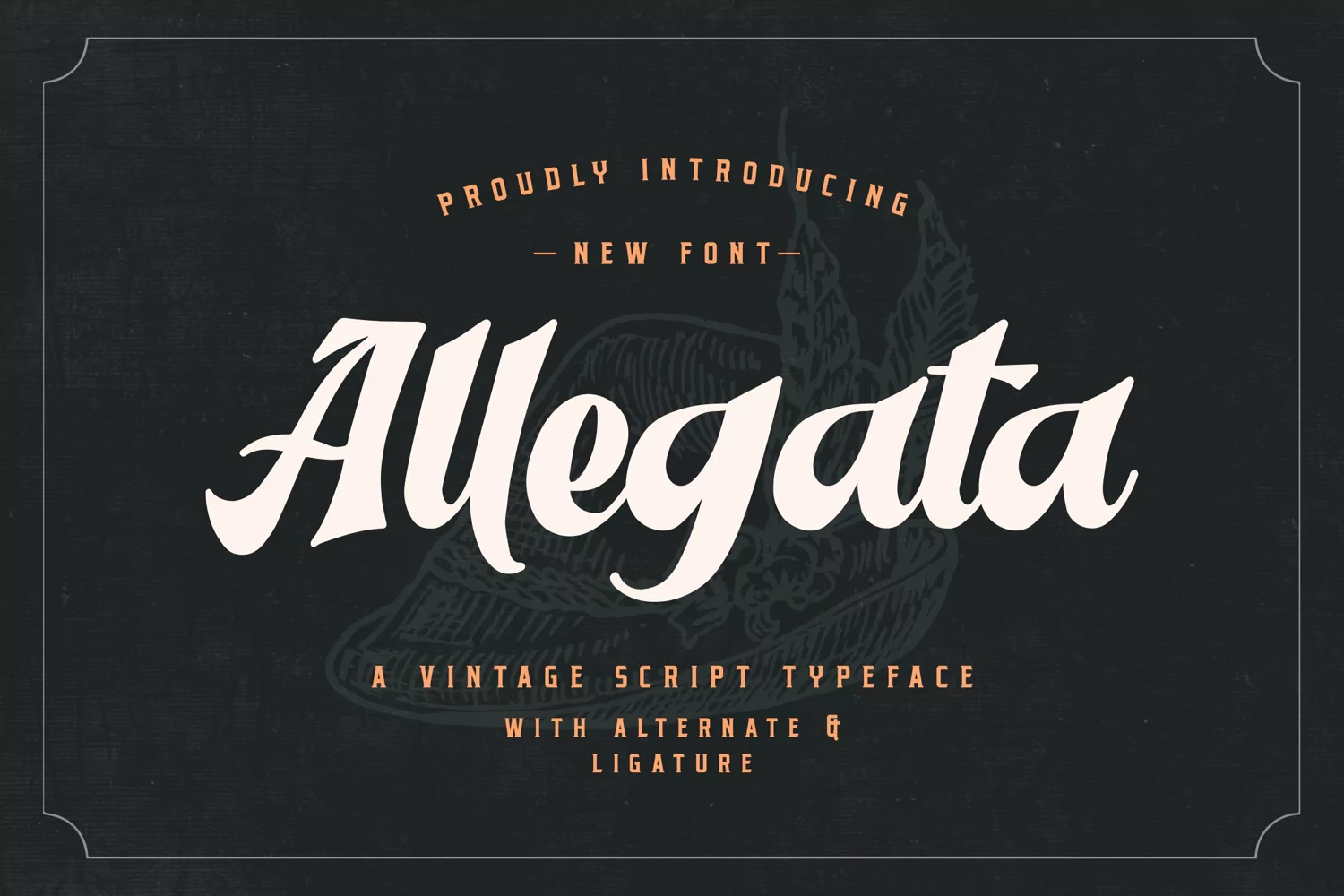
Allegata - A Vintage Script Typeface
Allegata is a unique vintage script font.
Fall in love with its incredibly versatile style and use it to create wedding invitations, restaurant brand, retro stationary art, eye-catching social media posts, label, logos, web, quotes, poster, workshop, and much more!
– Uppercase
– Lowercase
– Symbols & Punctuation
– Numeral
– Ligature
– Alternate
– Multilingual Support